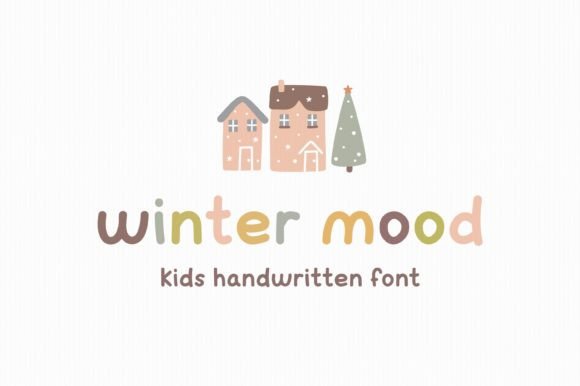
In a realm of digital artistry, where creativity knows no bounds, let us introduce you to the "Winter Mood Font" - a captivating display font born from the imagination of Julia_Volkova. This font is a testament to the boundless power of words and the emotions they evoke.
Crafted with utmost precision, the "Winter Mood Font" boasts an irresistibly playful and amicable persona. It is a perfect companion for designs that demand a touch of whimsy and lightheartedness. Visualize cartoon characters leaping off the screen, children's games filled with laughter, and titles that dance before your eyes, all adorned with the charm of this remarkable font.
With its versatile nature, the "Winter Mood Font" effortlessly adapts to a myriad of creative expressions. Whether you're a seasoned designer or a novice venturing into the world of visual storytelling, this font promises to transform your ideas into captivating realities. Brand names will exude a distinct character, book covers will entice readers with their enchanting allure, and posters will command attention with their vibrant messages.
As you embark on your creative journey with the "Winter Mood Font," you'll discover a world where joy and inspiration converge. The font's innate ability to evoke emotions and create a lasting impression makes it an invaluable asset for any project that seeks to engage and captivate audiences.